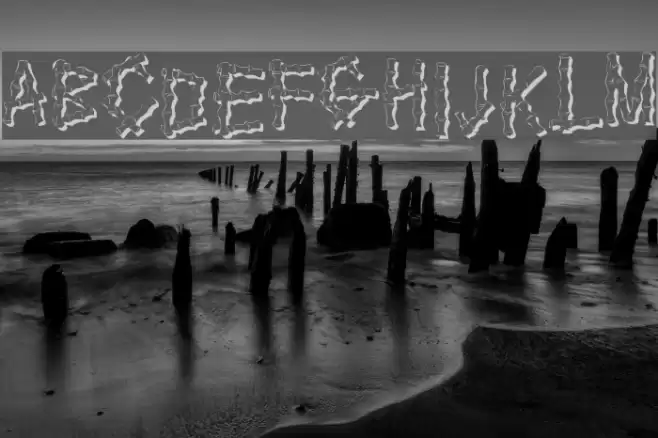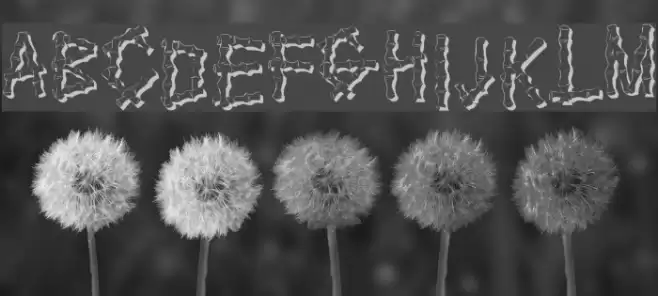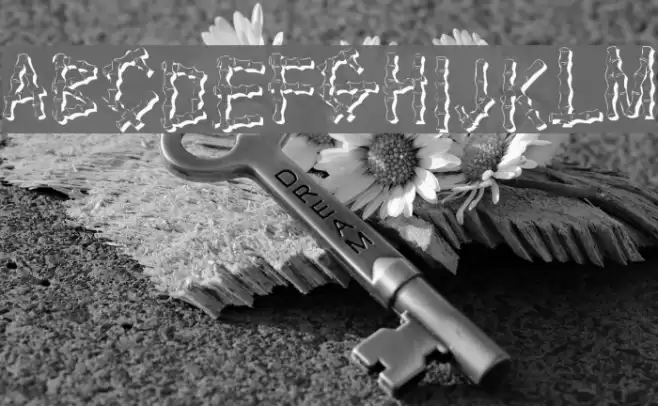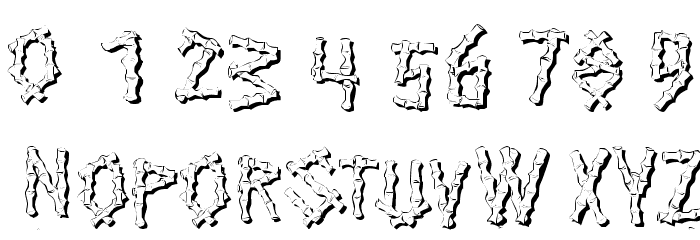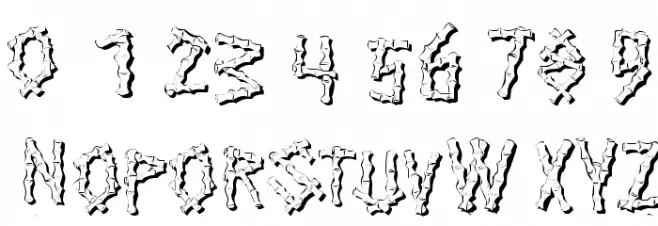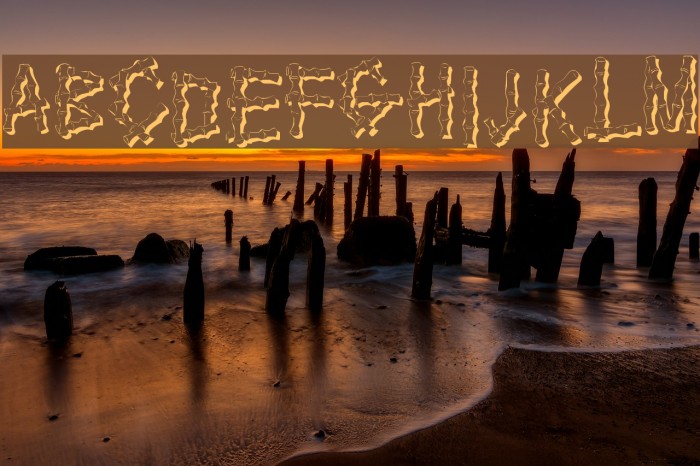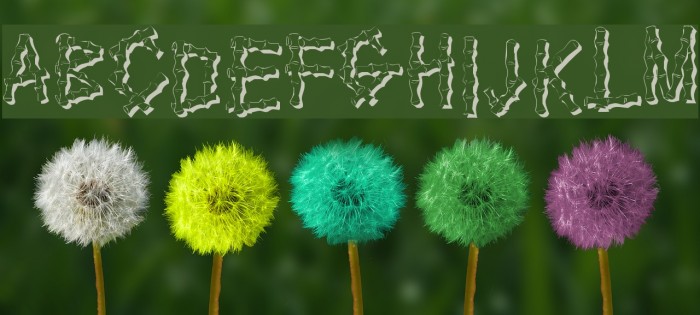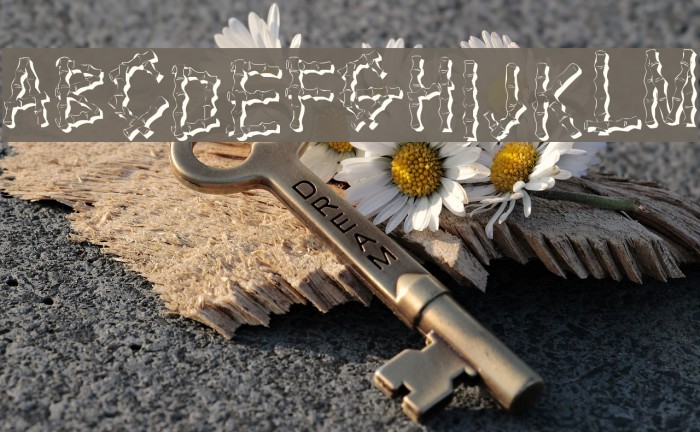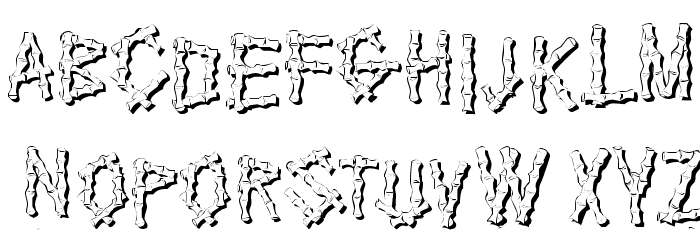
KR Bamboo Font
KR Bamboo Description
This font features a unique and artistic design that mimics the appearance of bamboo sticks. Each character is crafted to resemble segments of bamboo, giving it a natural and organic feel. The strokes are uneven and textured, adding to the rustic charm of the font. The overall look is playful yet sophisticated, making it suitable for projects that require a touch of nature or an exotic theme. The font maintains readability while offering a distinct visual appeal, perfect for creative and decorative purposes.
A bamboo-inspired decorative font with textured, organic strokes from Uncategorized fonts.
- Proposed Projects: Ideal for eco-friendly branding, nature-themed posters, Asian cuisine menus, or any project seeking a natural, rustic aesthetic.
- Use Case: Logos, Posters, Headlines